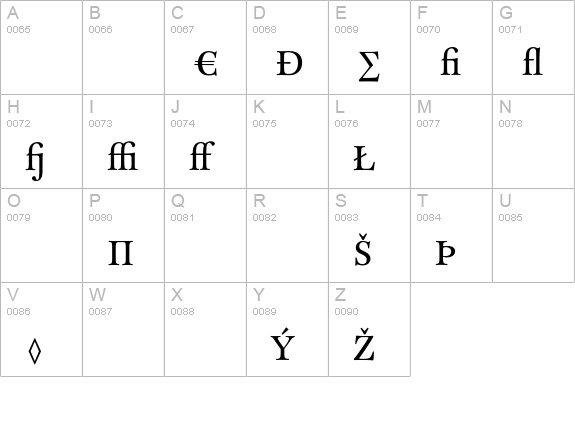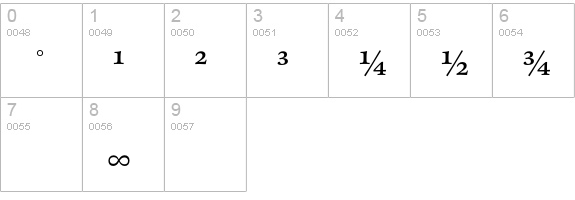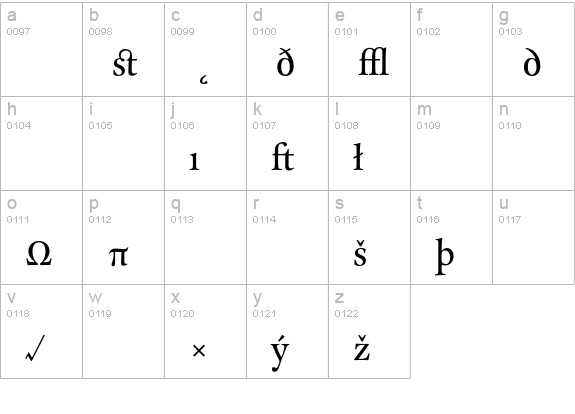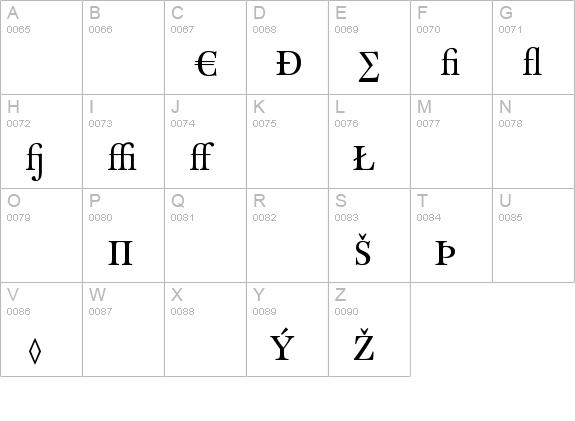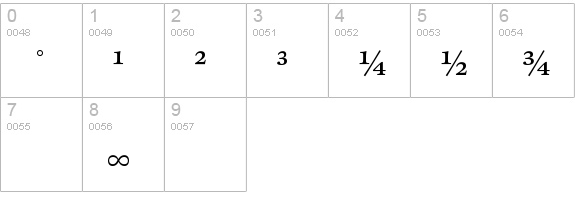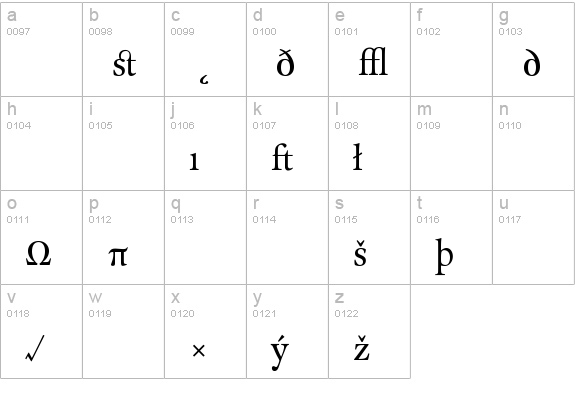
CliffordEighteen-RomanExpert font is a timeless and elegant typeface that exudes sophistication and class. With its classic Roman style and intricate details, this font is perfect for adding a touch of refinement to any design project. The precise letterforms and subtle serifs make CliffordEighteen-RomanExpert a versatile choice for a wide range of applications, from branding to editorial design. What sets CliffordEighteen-RomanExpert font apart is that it is available for free download at FontsMarket.com. This means that you can easily access and use this exquisite font without any cost, making it a valuable addition to your font library. Whether you're working on a professional project or a personal creative endeavor, CliffordEighteen-RomanExpert font is sure to elevate your designs with its timeless appeal and exceptional quality.